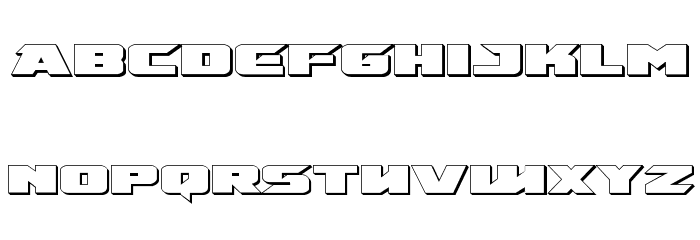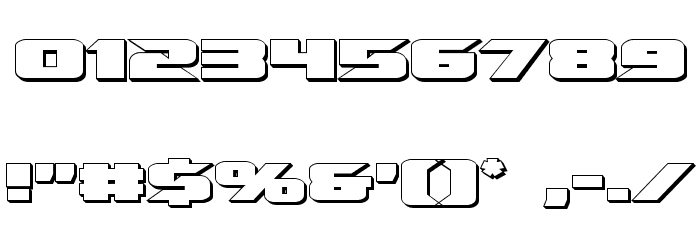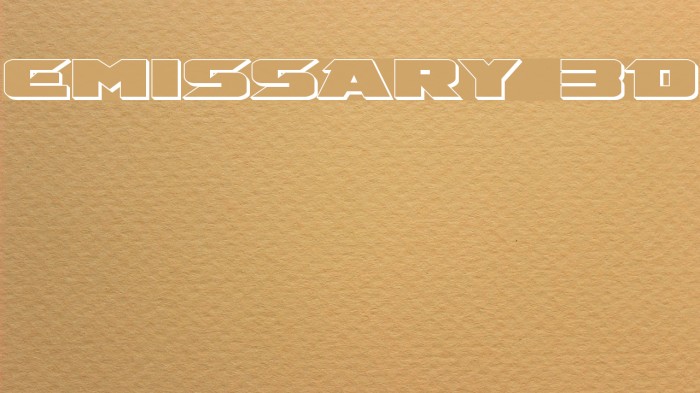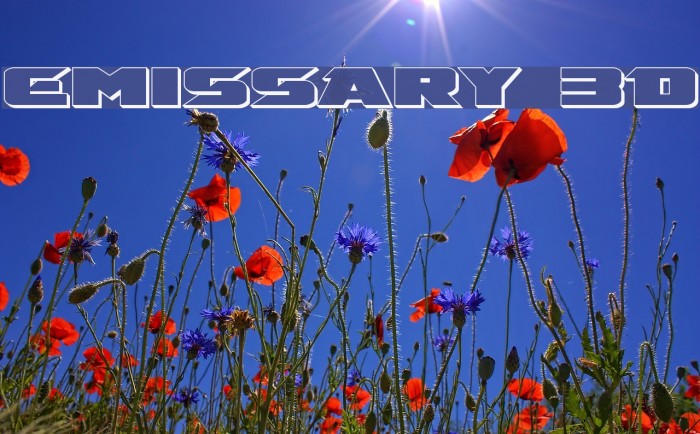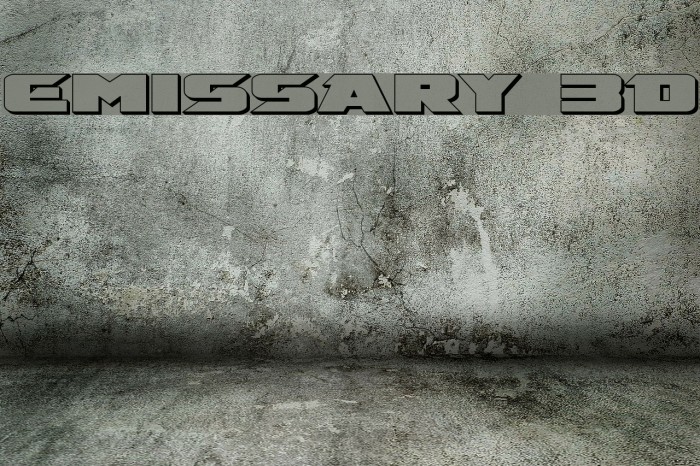
Emissary 3D Font
This font features a bold, three-dimensional style with a strong geometric influence. The characters are blocky and angular, with sharp edges and a distinct shadow effect that gives them a sense of depth. The uppercase and lowercase letters maintain a consistent design, emphasizing a futuristic and industrial aesthetic. Numbers and special characters follow the same design principles, ensuring uniformity across all glyphs. The font's unique style makes it ideal for projects that require a standout, eye-catching typeface.
A bold, 3D geometric font with a futuristic and industrial look.
- Proposed Projects: Ideal for video game titles, movie posters, tech branding, and sci-fi themed projects.